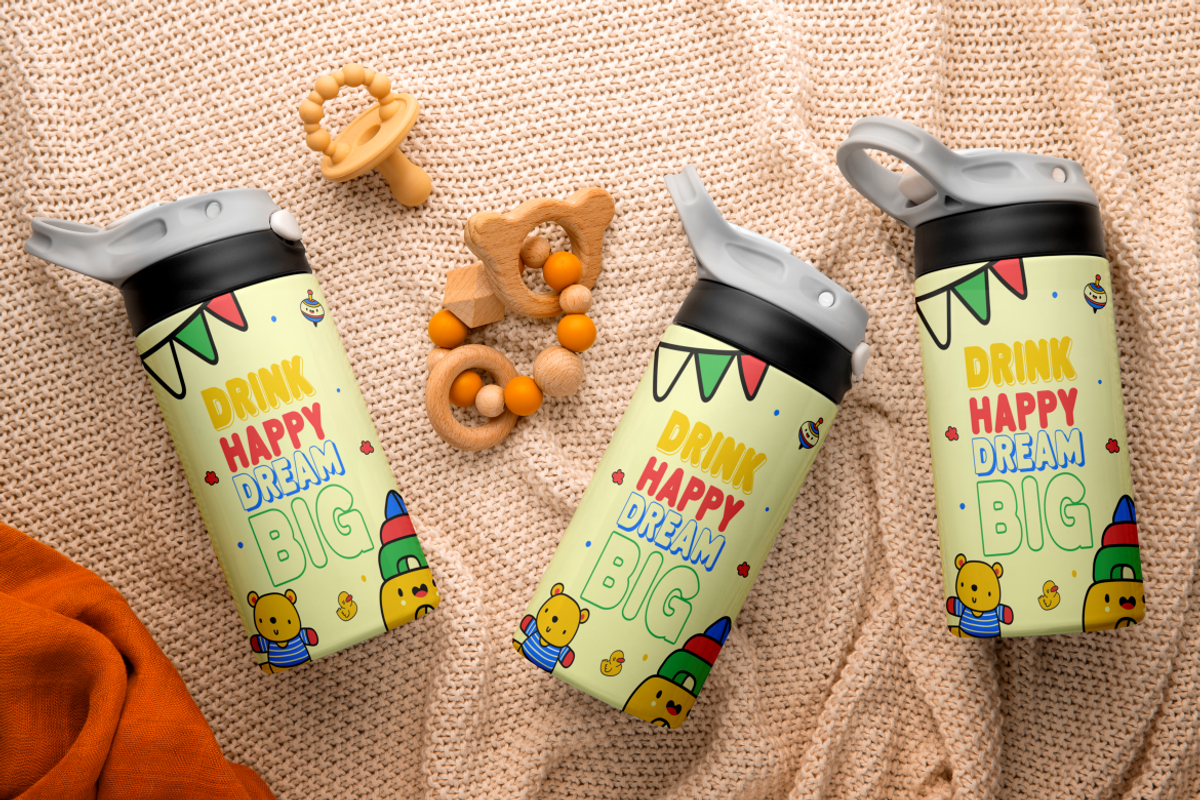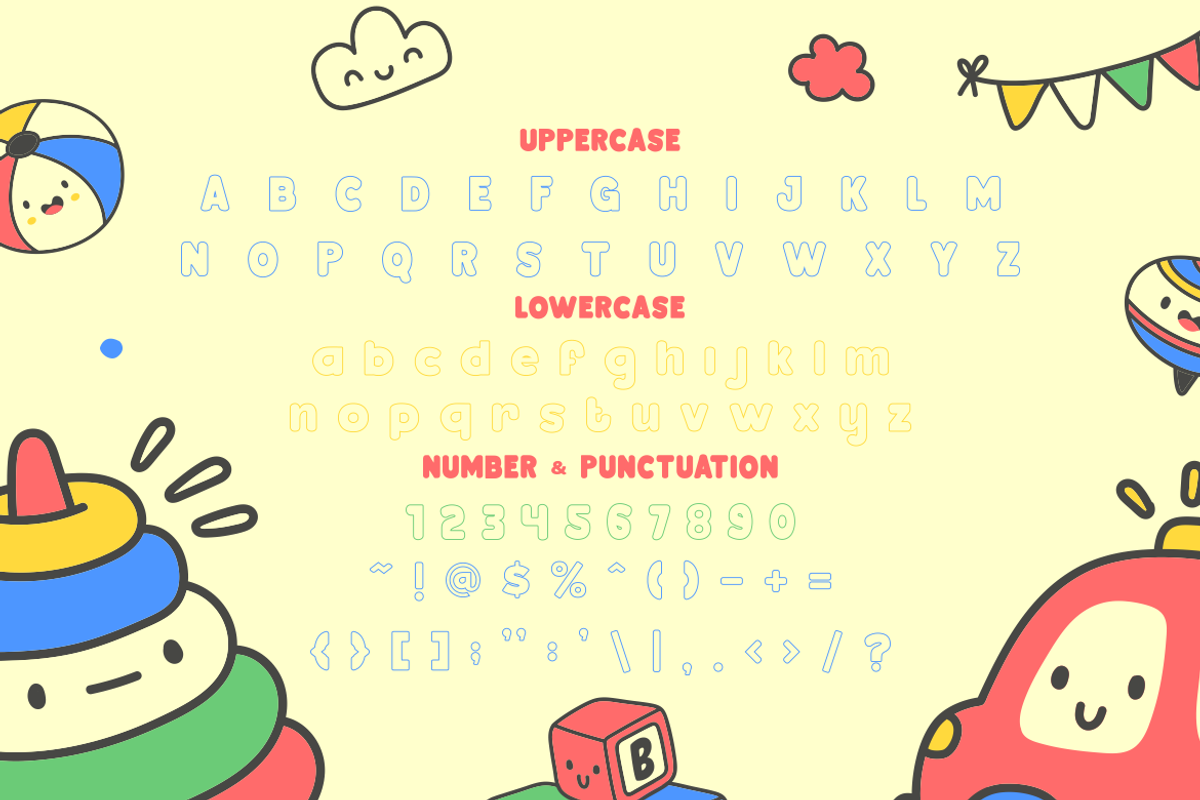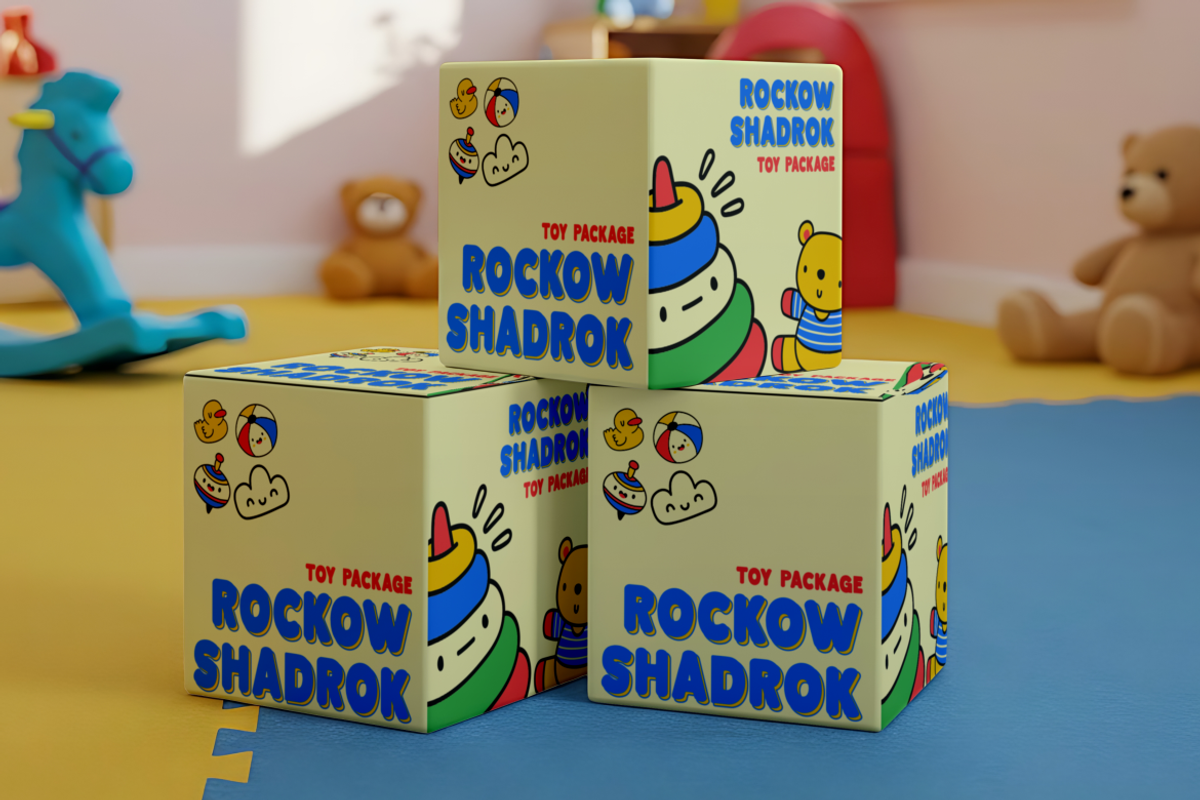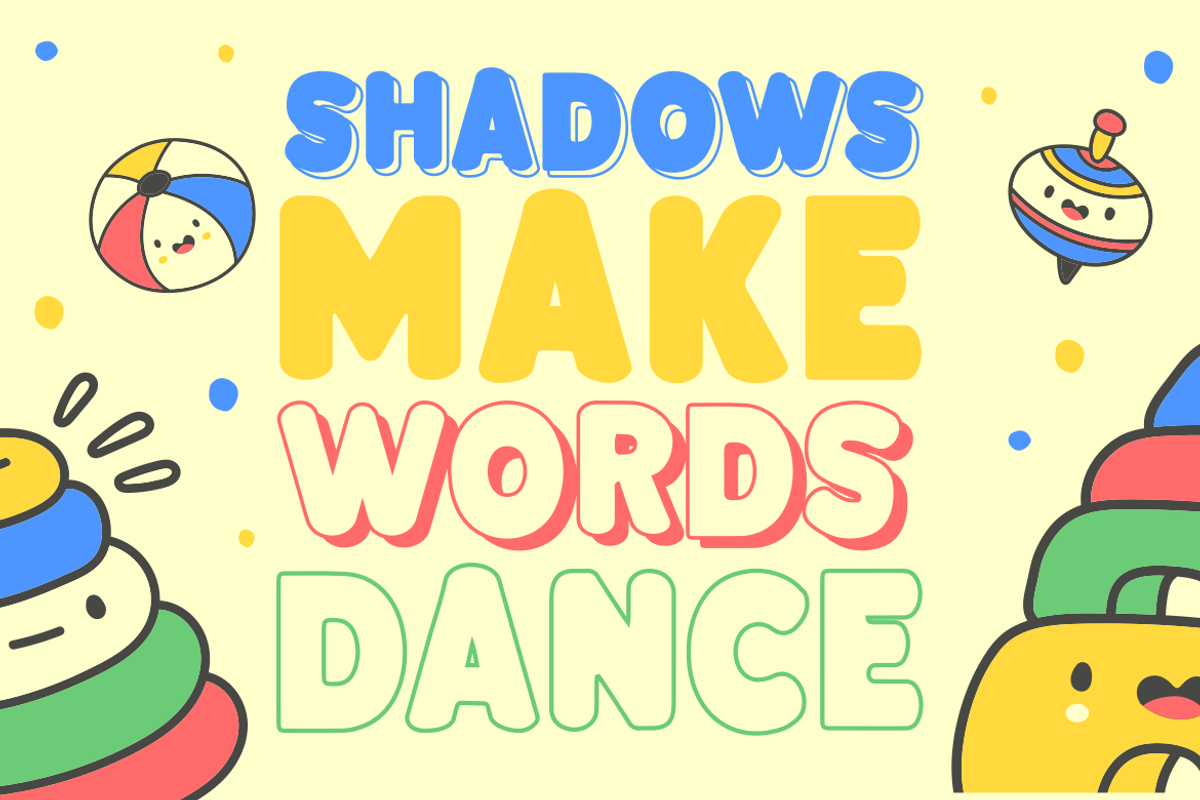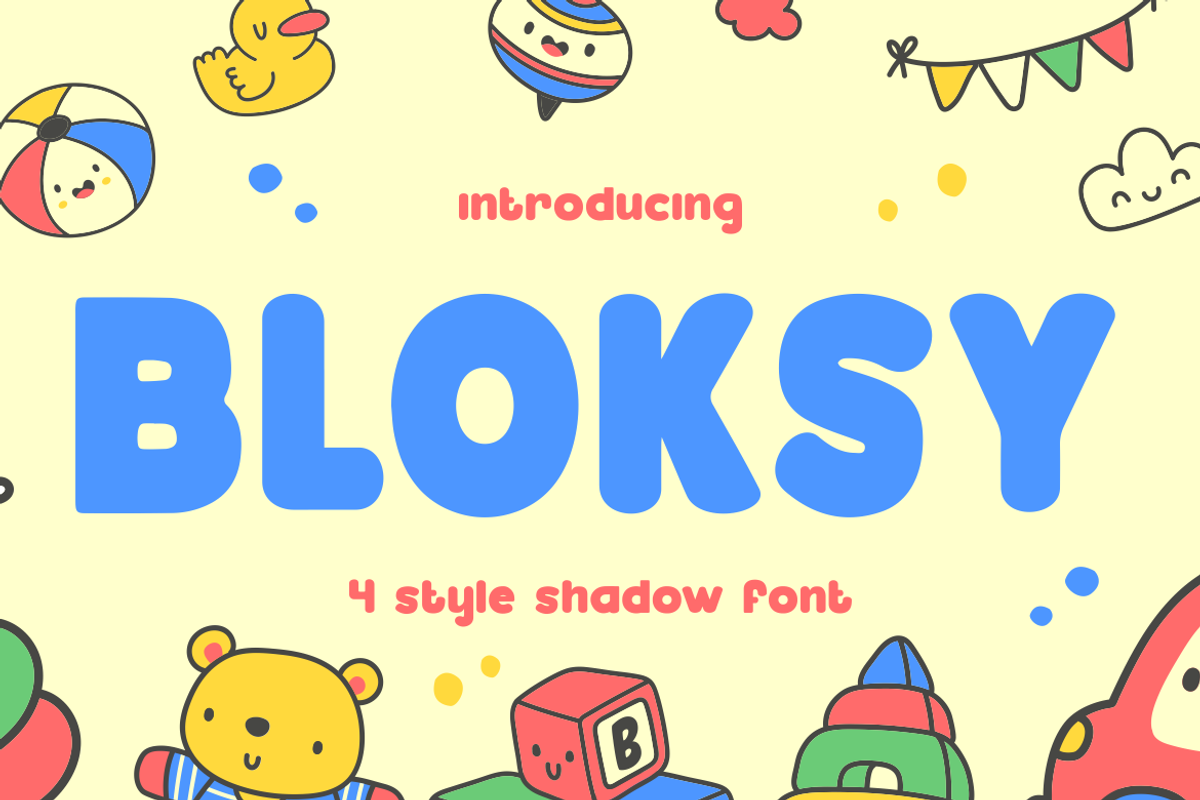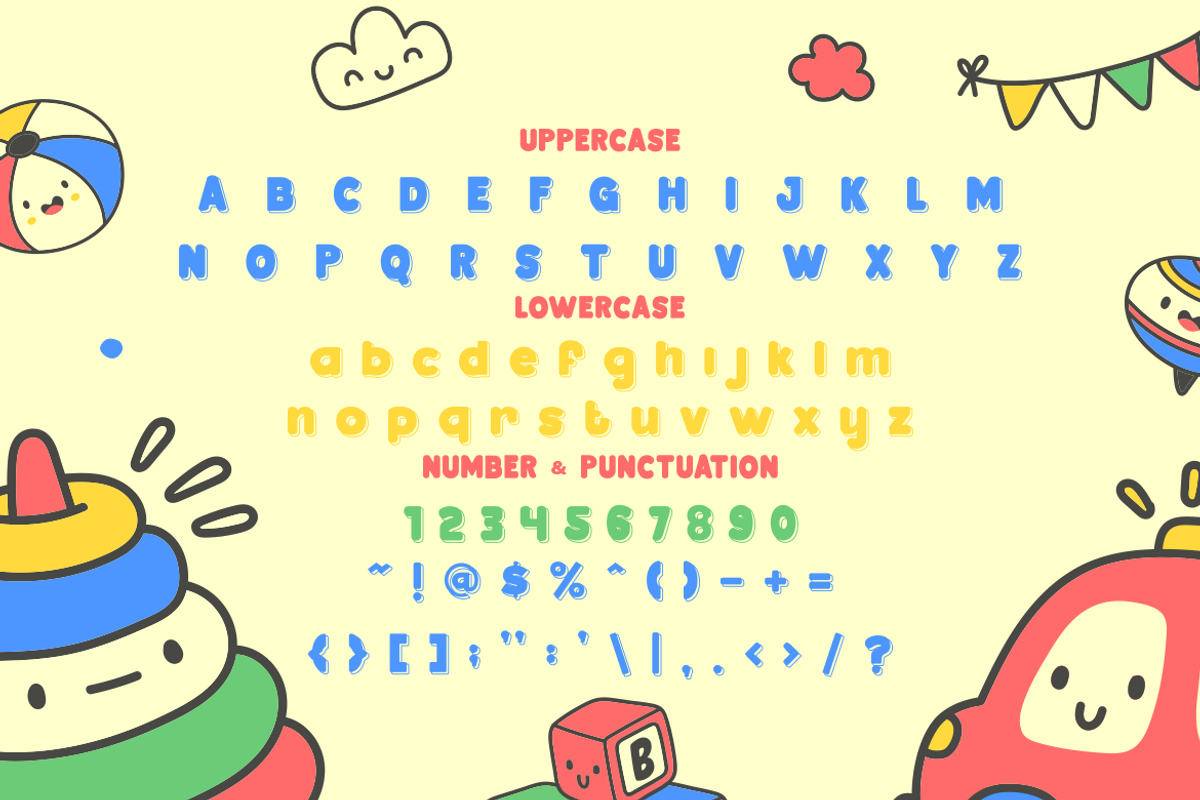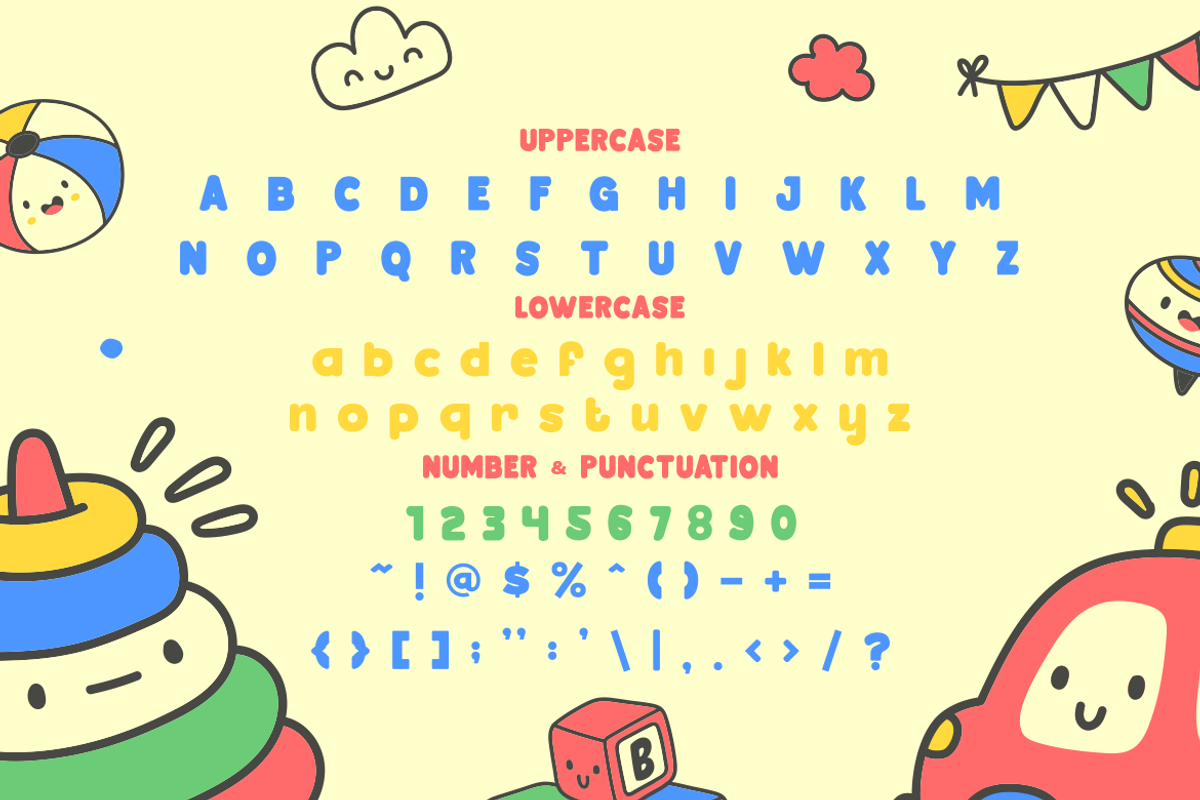
Bloksy 4 Style Shadow Font
Bloksy 4 Style Shadow Font brings a bold and joyful character to creative projects that need a friendly voice. The letters are thick, rounded, and smooth, giving the typeface a soft and welcoming look. Each curve feels intentional, with balanced proportions that make every word easy to read. The font offers four fun shadow options that add depth, rhythm, and movement to your text. Its chunky shapes deliver a strong presence while staying charming and approachable. You can feel the playful attitude in every glyph, thanks to its rounded edges and clean, consistent weight. This mix of clarity and personality makes Bloksy 4 Style Shadow Font ideal for projects that want a bright, cheerful, and lively impression.
The playful styling works perfectly for logo work, branding, packaging, posters, stationery, and children-focused content. Its bold forms help headlines stand out, while the quirky flow adds warmth to quotes, stickers, covers, and social media graphics. Designers can use the four shadow styles to build varied looks without switching fonts, giving them more flexibility in one family. Its soft shapes make it perfect for crafting, invitations, toy brands, kids’ merchandise, and friendly business promotions. The strong readability also supports magazine titles, product labels, book covers, and fun advertising layouts. With Bloksy 4 Style Shadow Font, every design gains a bright spirit and a memorable visual identity that feels fun, energetic, and full of charm.